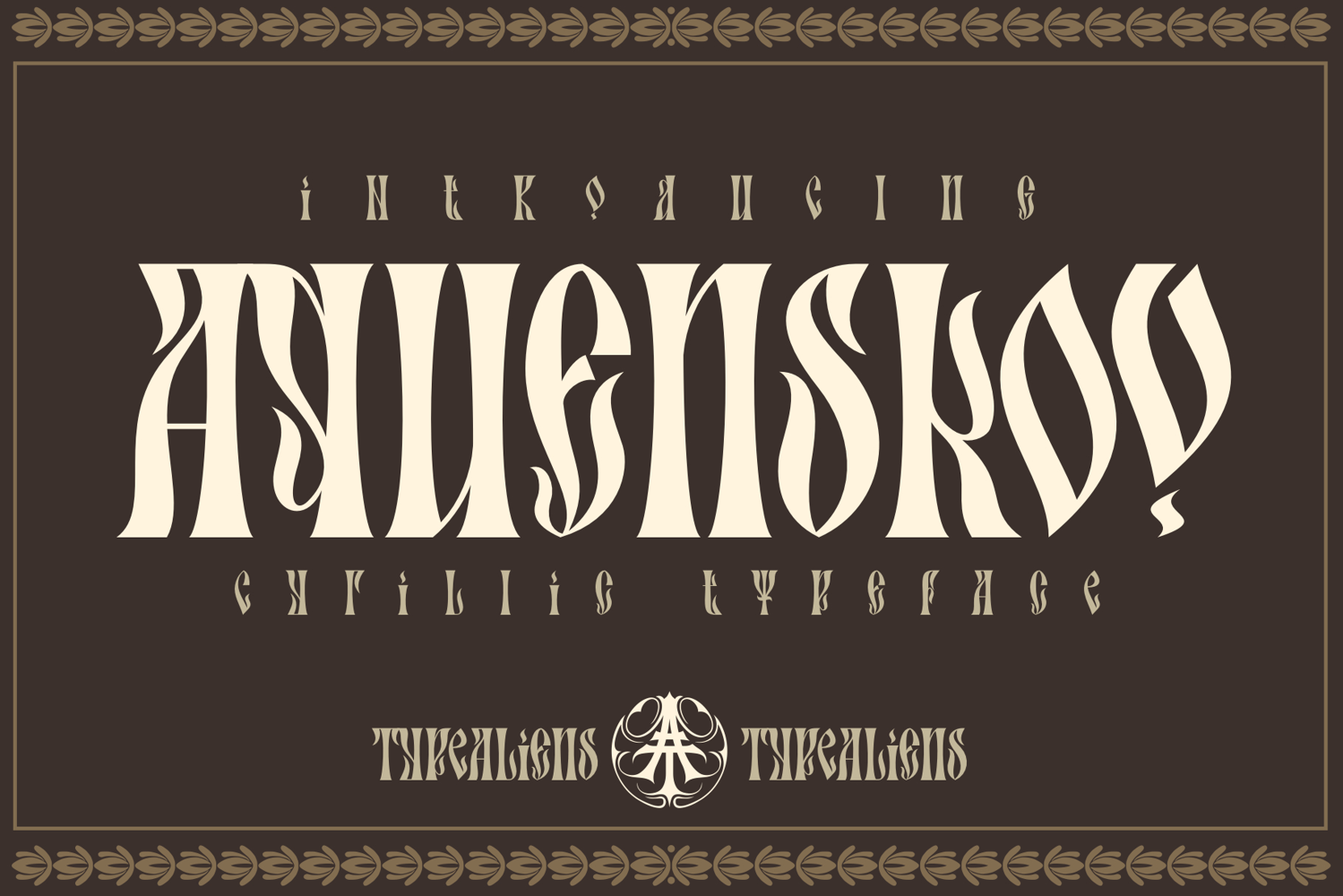
Aquenskov for Streetwear & Apparel
Introducing Aquenskov, a Cyrillic-inspired font. This is a fun font for exploring vintage designs with a cool feel. While readability isn't as easy as Serif or Sans Serif fonts, it's primarily a display font, perfect for creating mysterious logos or quirky, intriguing titles.
We hope that fans of vintage fonts will enjoy and use this font for its intended purpose: as a display font or for titles. Because of its mysterious nature and bold body, it's also well-suited for product branding, as well as for those seeking a unique, distinctive, and intriguing look.
"Imperfect," as a font, Aquenskov isn't, but sometimes curiosity and uniqueness make branding more memorable.